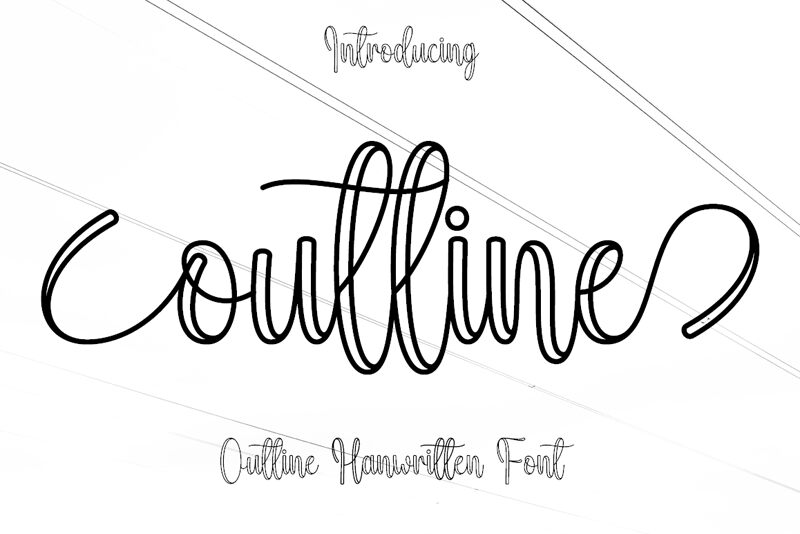
Outline
Outline by Hardiboy Design is a font that exudes elegance with its calligraphy-inspired strokes, wrapped in a modern outlined aesthetic. The graceful flow of the lines creates an air of sophistication, while the condensed nature of each character ensures a refined and stylish presence on any canvas.
This font marries the charm of traditional script with contemporary clarity, making it ideal for invitations, branding, and artistic projects that require a touch of finesse without overwhelming the senses. Whether gracing the pages of a boutique's lookbook or setting the tone on event signage, Outline promises to elevate your design with its distinct blend of classic allure and chic simplicity.